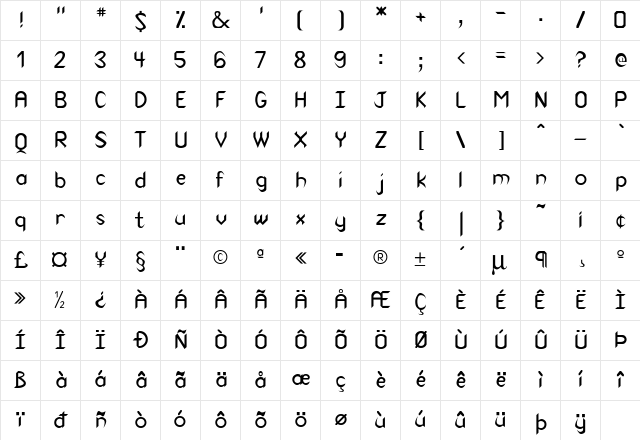
Complete Indio Regular glyph index. Displaying only characters natively supported by Indio Regular font.
Indio is a composed and adaptable typeface that performs quietly and consistently across a wide range of design contexts.